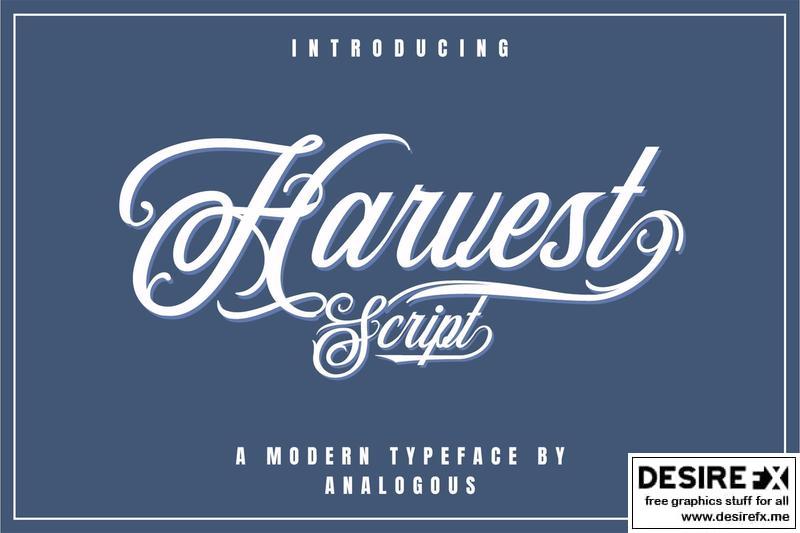
Introducing the new modern typeface font, Harvest Script!
Harvest Script is perfect for red wine label, vodka label, upscale packaging, wedding stationery, invitations, business cards, branding and other projects that require a touch of handwriting and luxury. In general, it creates a luxurious and elegant look in design.
Harvest Script comes with beautiful uppercase and lowercase alternates, ligatures and loved by many end-swashes.